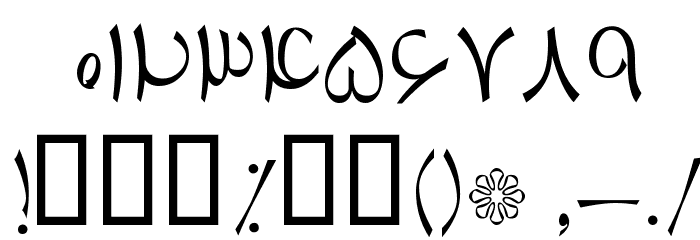
Tabassom Font
Tabassom Description
This font features a unique and artistic style with a flowing, cursive design. The characters are crafted with elegant curves and a sense of movement, giving it a dynamic and expressive appearance. The strokes vary in thickness, adding a touch of sophistication and flair. The numbers and special characters maintain the same fluidity, ensuring a cohesive look across all elements. This font is ideal for projects that require a personal and creative touch, such as invitations, artistic posters, or branding materials that aim to stand out.
A dynamic and artistic cursive font with elegant curves and varying stroke thickness from Uncategorized fonts.
- Proposed Projects: Ideal for invitations, artistic posters, branding materials, and creative projects.
- Use Case: Logos, Artistic projects, Invitations